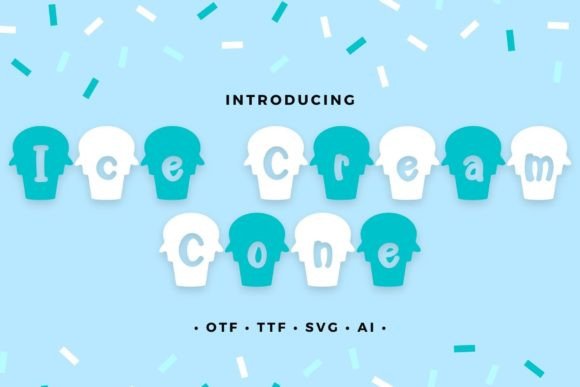
Journey into a world of playful creativity with Ice Cream Cone Font, the ultimate display font family designed to unleash your inner child. Dive into a realm of imagination where every letter dances with joy, transforming your designs into captivating expressions of youthful energy.
Crafted by the talented Brown Cupple Fonts, Ice Cream Cone Font is a visual symphony of whimsical shapes and cheerful curves. Its charming characters exude a delightful personality, perfect for capturing the innocence and wonder of childhood. Let your designs burst with vibrant colors and playful elements as you immerse yourself in the magic of this captivating font.
With Ice Cream Cone Font, transform your projects into a wonderland of imagination. Create enchanting blog posts that transport readers to a realm of pure joy. Design logos that radiate a cheerful and lighthearted spirit, leaving a lasting impression on your audience. Elevate your branding with a touch of whimsy, attracting customers with its irresistible charm.
Unleash your creativity and let Ice Cream Cone Font lead you on an adventure through the world of design. Its versatile nature makes it the perfect companion for a myriad of projects. From eye-catching ads that demand attention to captivating invitations that promise an extraordinary event, Ice Cream Cone Font is the ultimate choice for those seeking a touch of magic.
Greeting cards adorned with Ice Cream Cone Font become heartfelt expressions of love and friendship, carrying messages of joy and cheer. Planners and photo albums take on a new life, becoming cherished keepsakes that capture precious memories with a dash of playful charm. Decorations infused with the spirit of Ice Cream Cone Font transform ordinary spaces into enchanting realms, inviting dreams to take flight.
Experience the sheer delight of designing with Ice Cream Cone Font, a font that speaks to the child within us all. Its enchanting aura captivates audiences of all ages, leaving an enduring impression that lingers long after your designs have been seen. Embrace the magic of Ice Cream Cone Font and embark on a journey of creative exploration, where every project becomes a testament to the power of imagination.